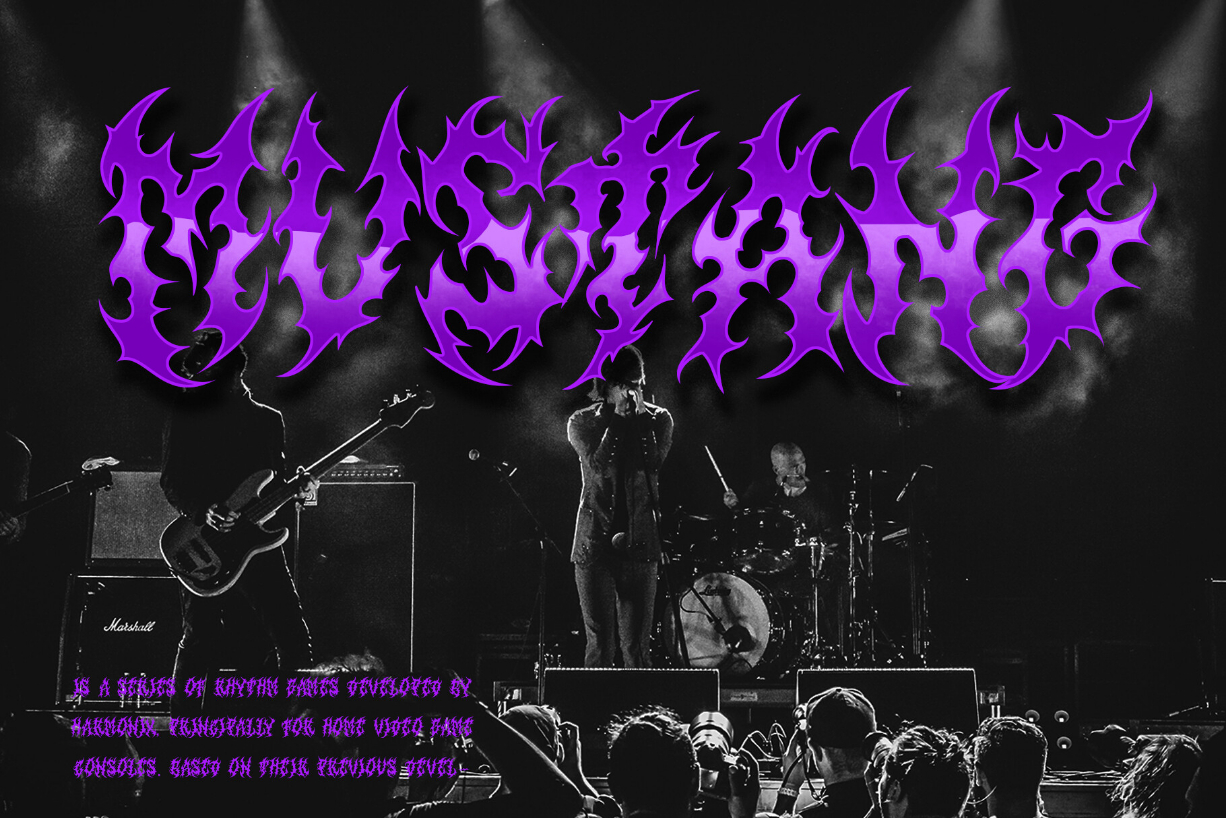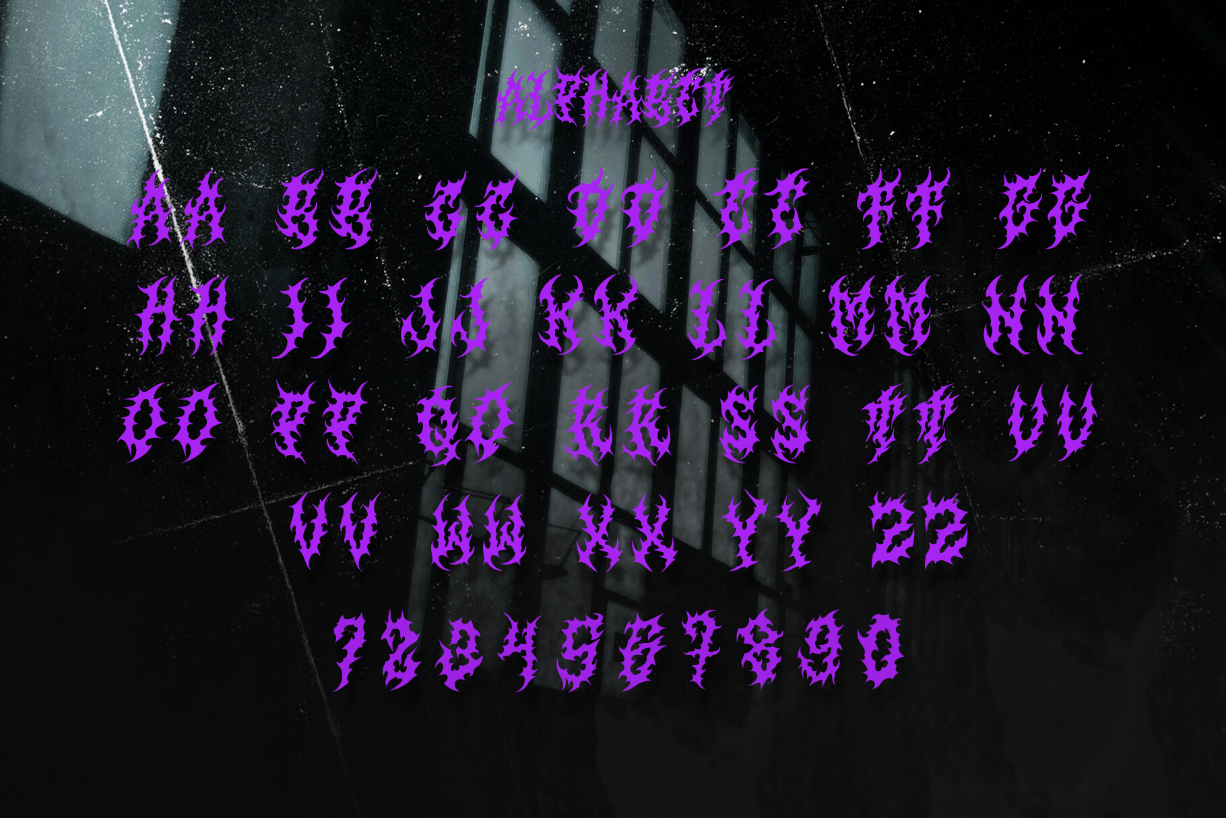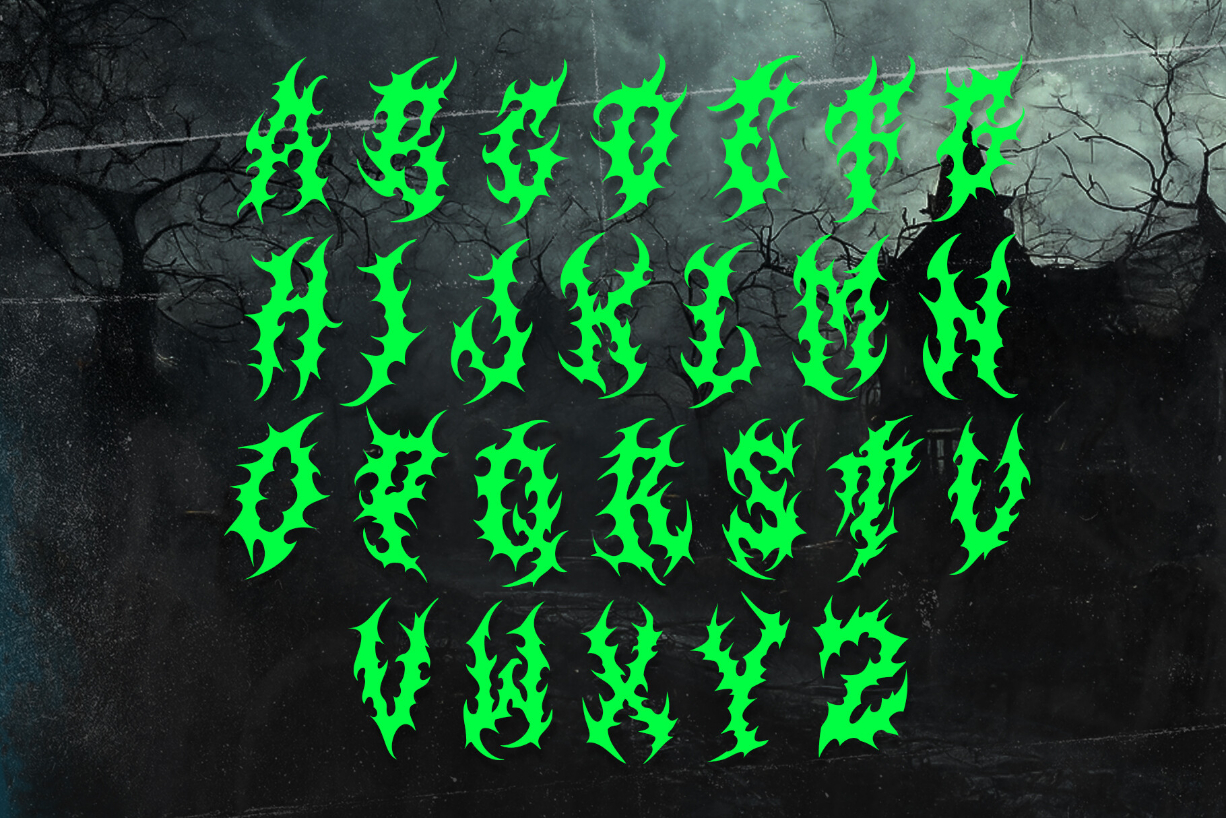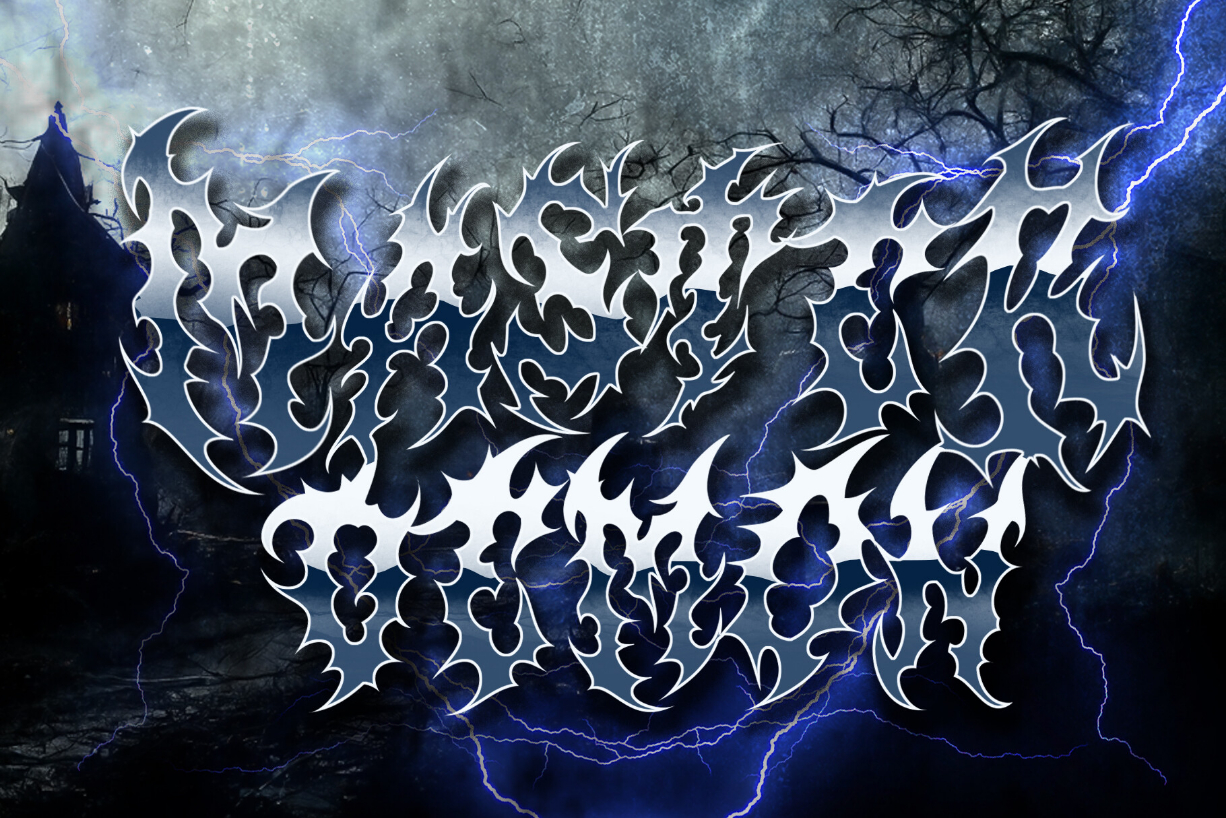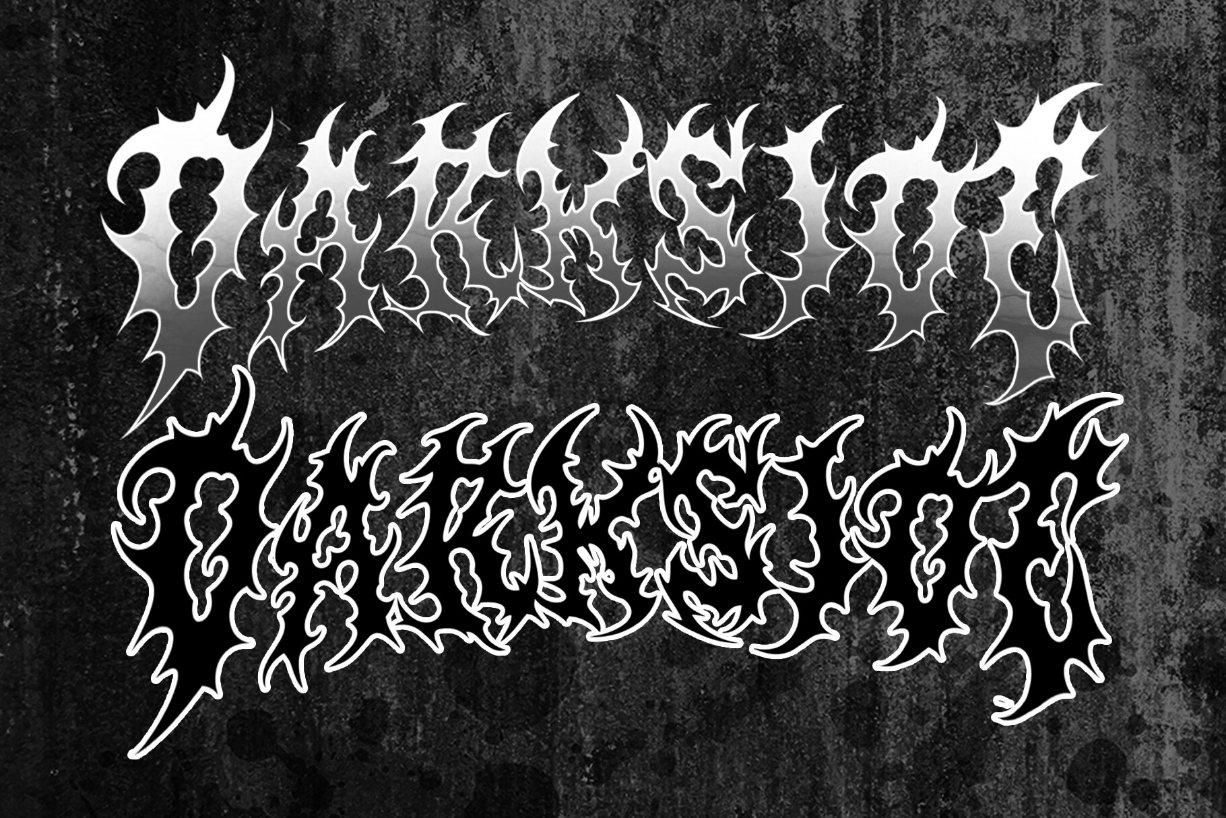
Satruns Font
SATRUNS Metal Blackletter Horror Font
SATRUNS Metal Blackletter Horror Font is a distinct, highly detailed, and Horror Metal Font font. It would make a great choice for exquisite Music, Poster, retro-urban designs, tattoo business branding, logos, vintage designs, and more.